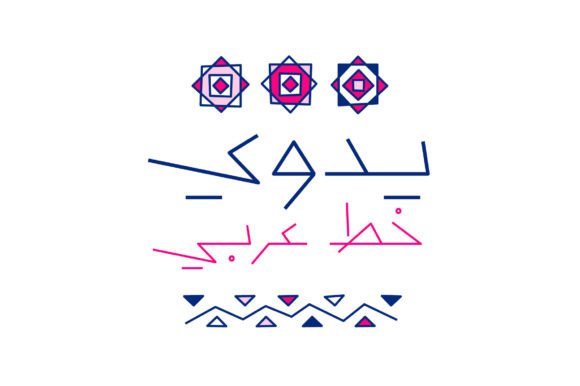
Unleash the Essence of Distinctive Handwriting with Yadawi Font: A Fusion of Authenticity and Digital Expression
Immerse yourself in the captivating world of Yadawi, an Arabic display font that mirrors the beauty of handmade artistry. This masterpiece, crafted by Mostafa El Abasiry, is a testament to the fusion of traditional calligraphy and modern digital typography. Whether for print or web projects, Windows, macOS, or mobile applications, Yadawi adapts seamlessly, adding a touch of sophistication and personality to your designs.
Step into a world where your words dance with elegance. Inspired by the distinctive structure of Arabic handwriting, Yadawi's letterforms radiate a sense of authenticity and warmth. Each stroke is a testament to the precision and skill of a master calligrapher, capturing the very essence of handwritten communication. Be it a logo, poster, invitation, or social media post, Yadawi transforms your text into an artistic masterpiece.
Go beyond the ordinary with a font that speaks volumes. Yadawi's unique geometric structure adds a touch of modernity to its traditional charm. The strategic angles and lines lend a contemporary edge, making it an ideal choice for those seeking a distinctive voice in their designs. From striking headlines to eye-catching branding, Yadawi ensures your message is impossible to ignore.
Elevate Your Digital Presence:
In the digital realm, Yadawi emerges as a powerful tool for captivating audiences and leaving a lasting impression. Its exceptional legibility ensures that your message is conveyed with clarity, even on the tiniest screens. Whether it's a website, social media platform, or mobile application, Yadawi's presence guarantees a seamless and immersive experience for your users.
Unlock Endless Creative Possibilities:
With Yadawi at your fingertips, creativity knows no bounds. Its versatile nature makes it an essential addition to the toolbox of any designer, marketer, or artist. Experiment with different weights, styles, and sizes to achieve a wide range of visual effects. Create logos that exude sophistication, posters that speak with boldness, and branding that leaves an unforgettable mark. The possibilities are as limitless as your imagination.
Embrace the Authentic Beauty of Handwritten Art:
In a world saturated with digital perfection, Yadawi offers a refreshing return to the genuine charm of handcrafted artistry. Its imperfect nature celebrates the individuality and character of human expression. With Yadawi, your designs transcend the ordinary, embodying a sense of authenticity and emotional resonance that resonates with your audience.
Discover the Allure of Yadawi Today: